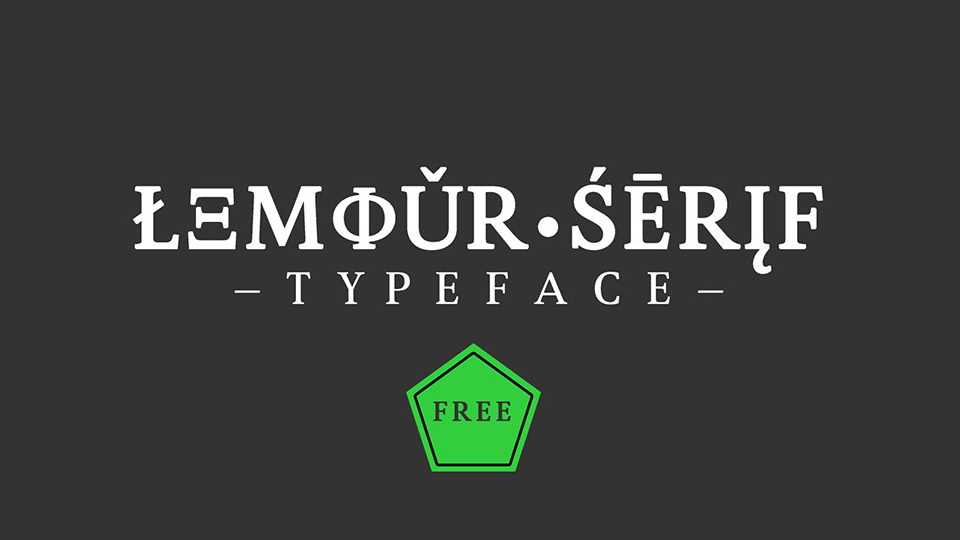
Download Lemour Serif font, a renaissance antiqua typeface. Lemur Serif has a good readability and legibility and works great for texts paragraphs.
Designer: Oliver Schwaiger